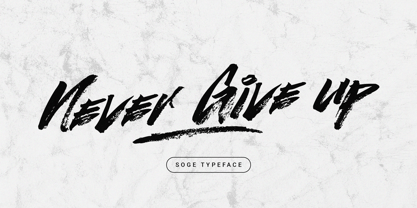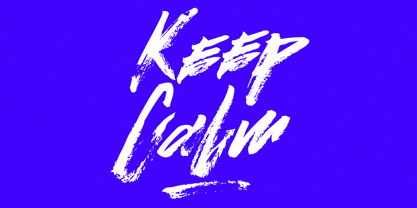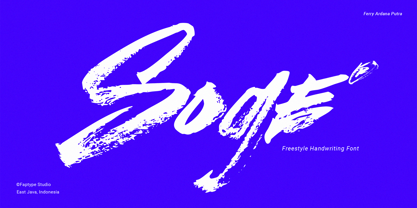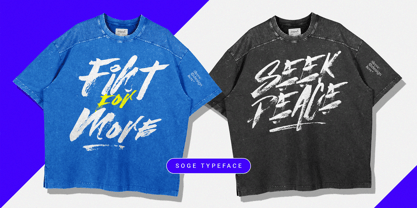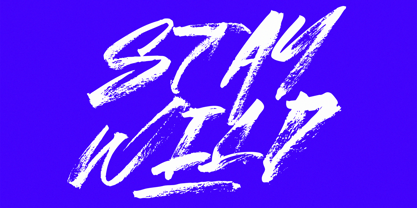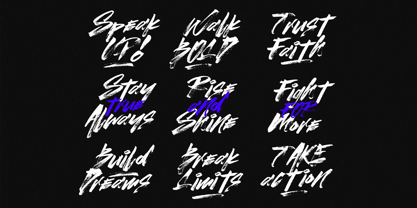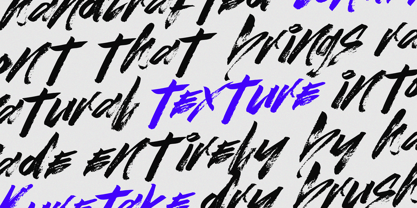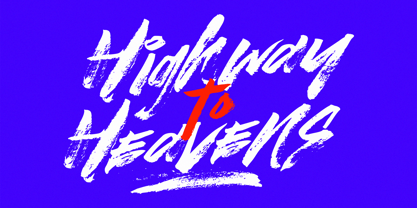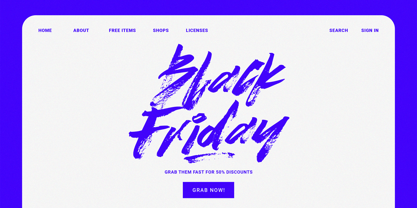
Soge Brush
by Ferry Ardana Putra
The Soge Brush Font Family was designed by Ferry Ardana Putra and published by Ferry Ardana Putra. Soge Brush contains 1 styles.
Soge – Freestyle Handwriting Font with Authentic Brush Energy
Introducing Soge, a freestyle handwriting font that captures the soul of brush lettering in its rawest, most expressive form. Created manually with a Kuretake dry brush, each stroke was crafted by hand, then carefully scanned and digitized to preserve every texture, splash, and imperfection — delivering a truly natural, heartfelt look.
Soge is more than just a font — it’s a reflection of rhythm and emotion. With its organic flow and dynamic energy, this font includes uppercase and lowercase characters, expressive swashes, complete punctuation, symbols, and multilingual support. Every letter dances with the imperfect beauty of hand lettering, making it perfect for logos, packaging, apparel, posters, personal branding, quotes, or anything that deserves a human touch.
Let your designs speak louder with the warmth of handwritten ink. Whether you’re building a fashion brand or a poetic poster, Soge brings soul, softness, and personality to every project. Embrace the art of imperfection — and let your words move like brushstrokes on paper.
Soge Features:
• A full set of Uppercase and Lowercase
• Numbers and Punctuation
• Multilingual Language Support